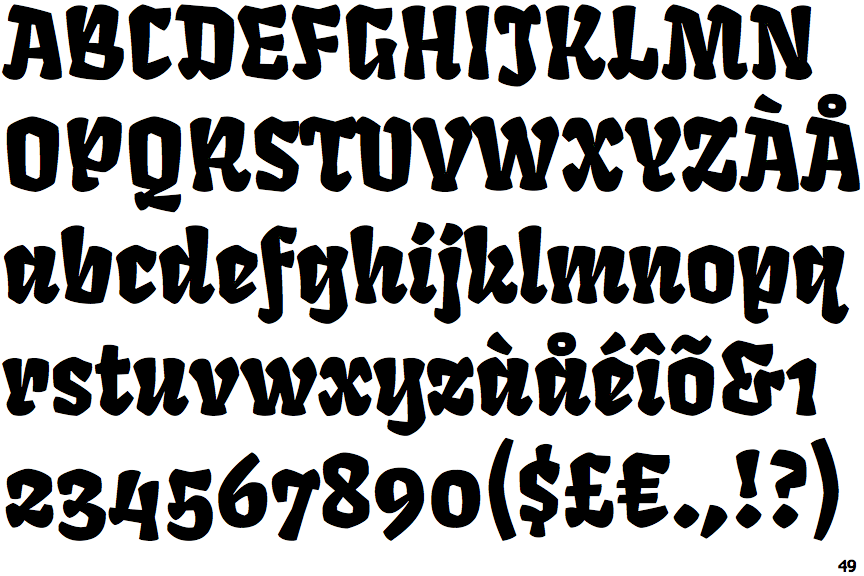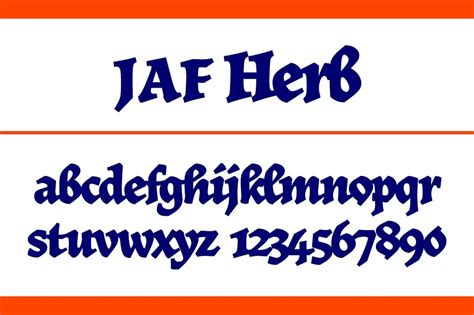
Jaf Herb Font . Web about jaf herb font family. It features connecting letterforms that are rather tightly spaced.
It features connecting letterforms that are rather tightly. A blackletter typeface with 4 styles, available from adobe fonts for sync. It features connecting letterforms that are rather tightly spaced.
Web explore jaf herb designed by tim ahrens at adobe fonts. It features connecting letterforms that are rather tightly. Web explore jaf herb designed by tim ahrens at adobe fonts. Web jaf herb regular is the perfect font for all your fun designs.
Jaf Herb Font - Originally designed by tim ahrens in. It features connecting letterforms that are rather tightly spaced. The jaf herb regular font was designed by tim ahrens. Web about jaf herb font family. Web information about the font jaf herb from just another foundry, and where to download it.
Jaf Herb Font - It features connecting letterforms that are rather tightly. Web information about the font jaf herb from just another foundry, and where to download it. Web jaf herb regular is the perfect font for all your fun designs. A blackletter typeface with 4 styles, available from adobe fonts for sync. It features connecting letterforms that are rather tightly spaced.
Jaf Herb Font - It features connecting letterforms that are rather tightly. A blackletter typeface with 4 styles, available from adobe fonts for sync. Herb is based on 16th century cursive broken scripts and printing types. It features connecting letterforms that are rather tightly spaced. The jaf herb regular font was designed by tim ahrens.
Jaf Herb Font - It features connecting letterforms that are rather tightly. Herb is based on 16th century cursive broken scripts and printing types. A blackletter typeface with 4 styles, available from adobe fonts for sync. The jaf herb regular font was designed by tim ahrens. It features connecting letterforms that are rather tightly spaced.
Jaf Herb Font - Herb is based on 16th century cursive broken scripts and printing types. It features connecting letterforms that are rather tightly spaced. It features connecting letterforms that are rather tightly. The jaf herb regular font was designed by tim ahrens. Originally designed by tim ahrens in.
Jaf Herb Font - The jaf herb regular font was designed by tim ahrens. A blackletter typeface with 4 styles, available from adobe fonts for sync. Web about jaf herb font family. Web explore jaf herb designed by tim ahrens at adobe fonts. It features connecting letterforms that are rather tightly.
Jaf Herb Font - The jaf herb regular font was designed by tim ahrens. Web about jaf herb font family. Web jaf herb regular is the perfect font for all your fun designs. A blackletter typeface with 4 styles, available from adobe fonts for sync. Web explore jaf herb designed by tim ahrens at adobe fonts.
Jaf Herb Font - Herb is based on 16th century cursive broken scripts and printing types. A blackletter typeface with 4 styles, available from adobe fonts for sync. Originally designed by tim ahrens in. It features connecting letterforms that are rather tightly spaced. The jaf herb regular font was designed by tim ahrens.
Jaf Herb Font - The jaf herb regular font was designed by tim ahrens. Originally designed by tim ahrens in. It features connecting letterforms that are rather tightly spaced. Web jaf herb regular is the perfect font for all your fun designs. Herb is based on 16th century cursive broken scripts and printing types.
Jaf Herb Font - Originally designed by tim ahrens in. It features connecting letterforms that are rather tightly. It features connecting letterforms that are rather tightly spaced. The jaf herb regular font was designed by tim ahrens.
Jaf Herb Font - The jaf herb regular font was designed by tim ahrens. It features connecting letterforms that are rather tightly. Web jaf herb regular is the perfect font for all your fun designs. Originally designed by tim ahrens in.
Jaf Herb Font - Web jaf herb regular is the perfect font for all your fun designs. Originally designed by tim ahrens in. It features connecting letterforms that are rather tightly. Web explore jaf herb designed by tim ahrens at adobe fonts. A blackletter typeface with 4 styles, available from adobe fonts for sync.
Jaf Herb Font - It features connecting letterforms that are rather tightly. Web explore jaf herb designed by tim ahrens at adobe fonts. It features connecting letterforms that are rather tightly spaced. Web about jaf herb font family. Herb is based on 16th century cursive broken scripts and printing types.
Jaf Herb Font - Web explore jaf herb designed by tim ahrens at adobe fonts. Web jaf herb regular is the perfect font for all your fun designs. Web about jaf herb font family. It features connecting letterforms that are rather tightly spaced.